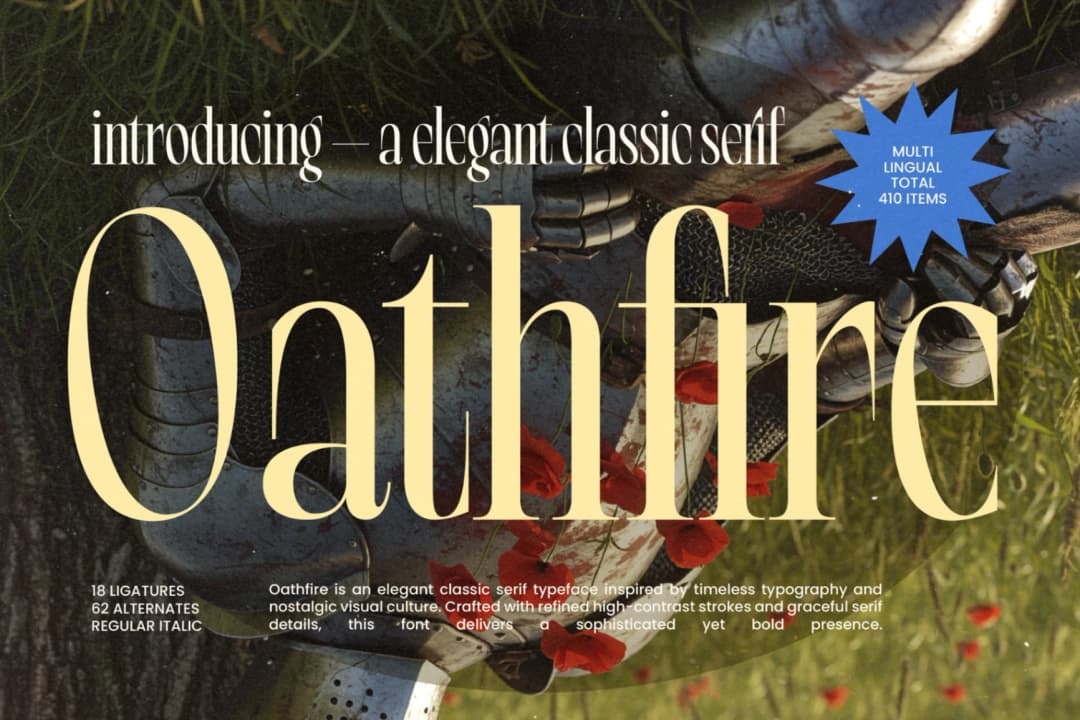
Oathfire Font
Oathfire Font is a distinctive and expressive font crafted to bring personality, structure, and creative energy into your projects. Oathfire – Elegant Classic Serif is a high-contrast display serif defined by its sophisticated, sweeping curves and dramatic vertical stress. Inspired by enduring typographic standards, this typeface delivers an immediate sense of gravitas and refined elegance. It is engineered for maximum impact, ensuring your headlines and brand statements capture attention with an undeniable sense of quality and luxurious weight.
Elevate your brand narrative instantly with unmatched typographic depth. This typeface is the definitive choice for projects demanding unparalleled sophistication. Oathfire – Elegant Classic Serif is perfect for high-end luxury branding, discerning product packaging, fashion editorial spreads, sophisticated book covers, and exclusive event invitations. Its inherent classical structure and sharp serifs ensure excellent legibility and stylistic integrity even at vast display sizes, solidifying its place as a premium design tool.
Unlock advanced design potential through extensive creative control. Featuring 62 stylistic alternates and 18 unique ligatures, Oathfire – Elegant Classic Serif allows designers to customize headlines and wordmarks for truly bespoke results. This level of OpenType feature support encourages typographic exploration and personalized character expression. With its extensive multilingual support, Oathfire – Elegant Classic Serif adapts seamlessly across global markets, making it incredibly versatile for international projects.
Invest in enduring typographic quality that communicates authority. Whether crafting a distinguished logo or designing an impactful editorial layout, Oathfire – Elegant Classic Serif provides the foundation for powerful, memorable visual communication. Download this essential font family today to infuse your portfolio with classic refinement and a distinctly bold, professional aesthetic that guarantees a high-end perception.